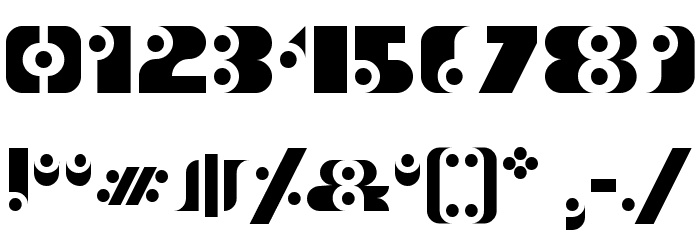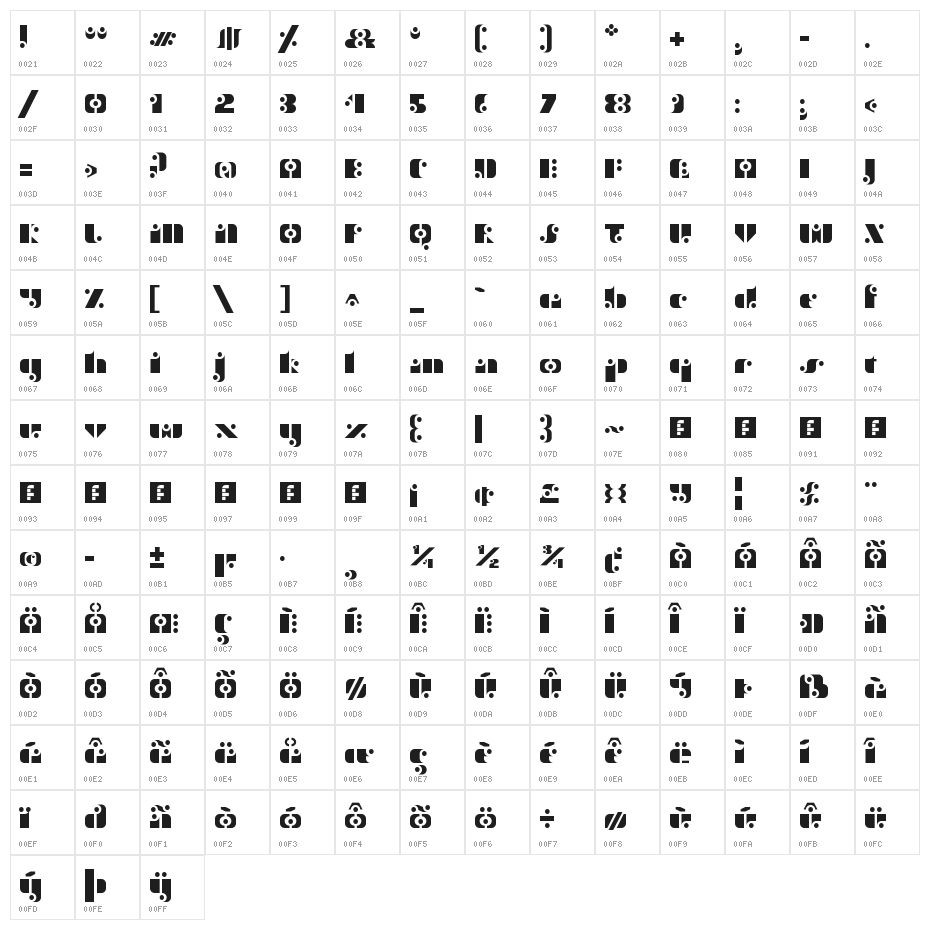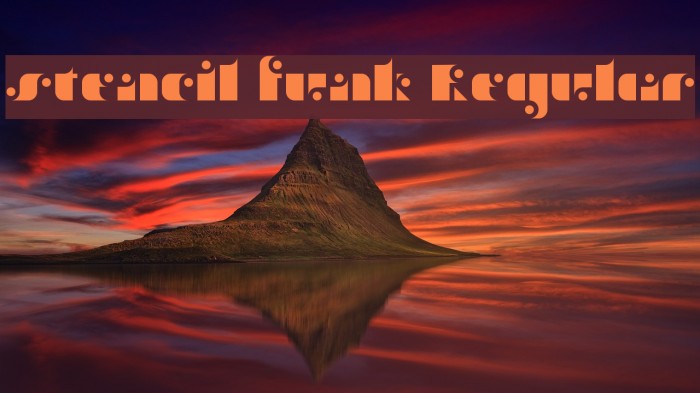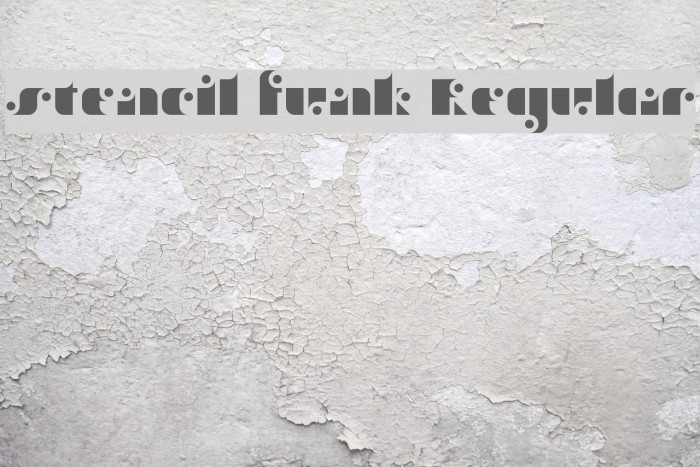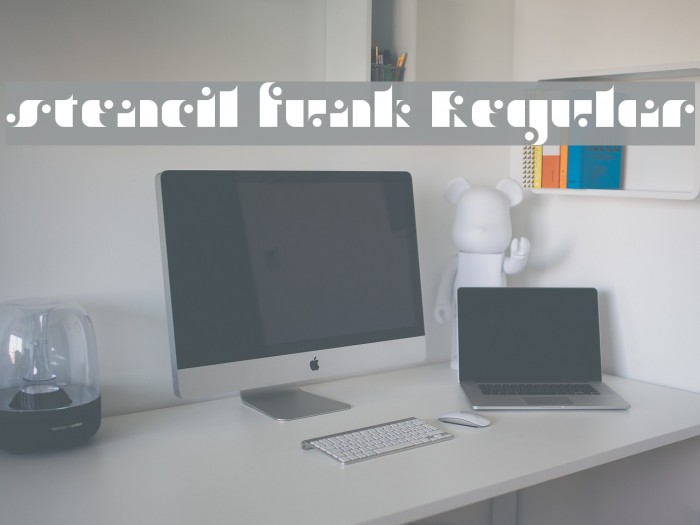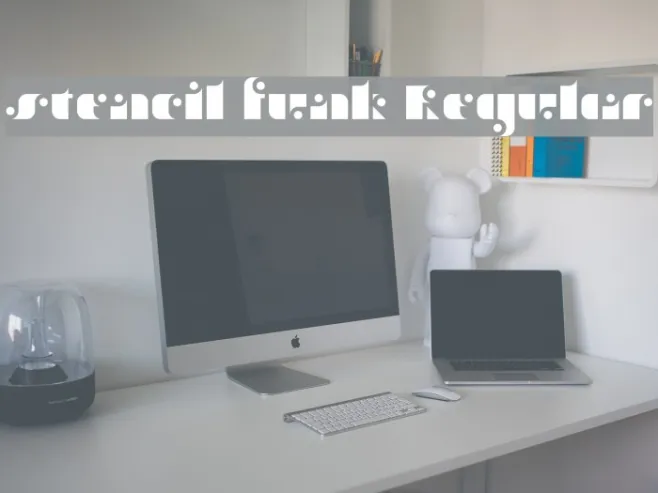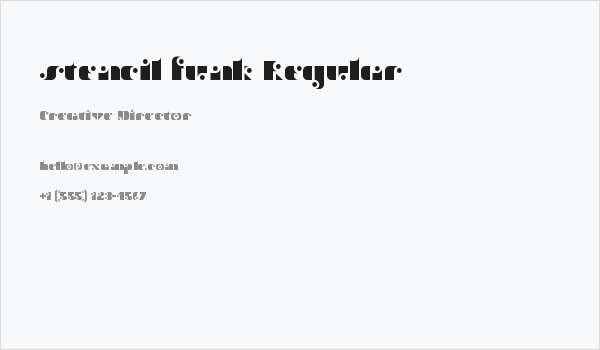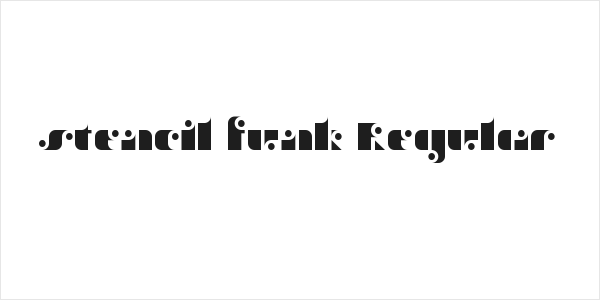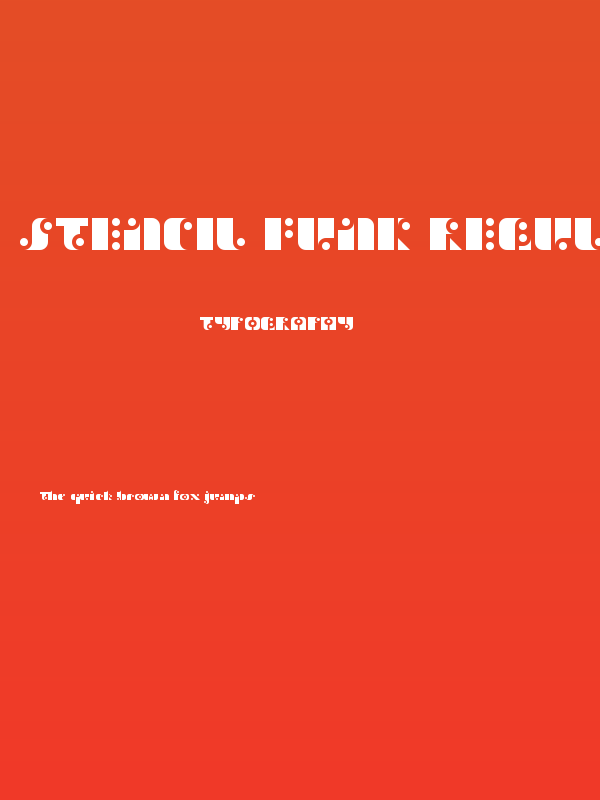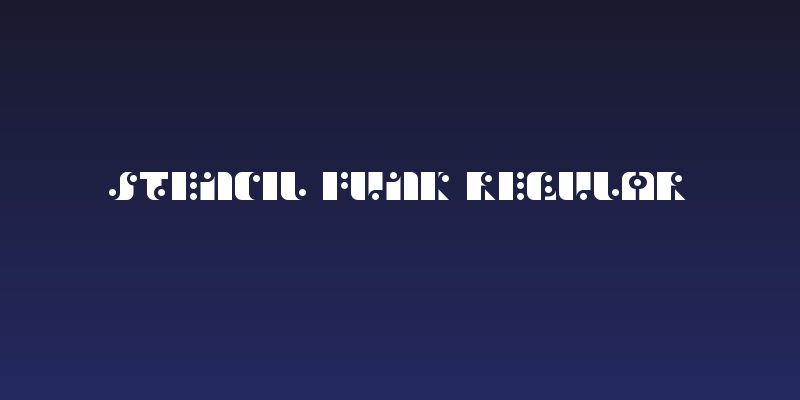
stencil funk Regular Font
stencil funk Regular Description
This font features a bold, geometric design with a distinct stencil-like appearance. Each character is crafted with solid, blocky shapes that are interrupted by circular cutouts, creating a playful yet structured look. The uppercase and lowercase letters maintain a consistent style, with rounded edges and uniform thickness. Numbers and special characters follow the same design principles, ensuring a cohesive visual identity throughout. The font's unique aesthetic makes it ideal for projects that require a modern, eye-catching typeface with a touch of funk.
| Proposed Projects | Ideal for posters, album covers, branding, and any project needing a modern, standout typeface. |